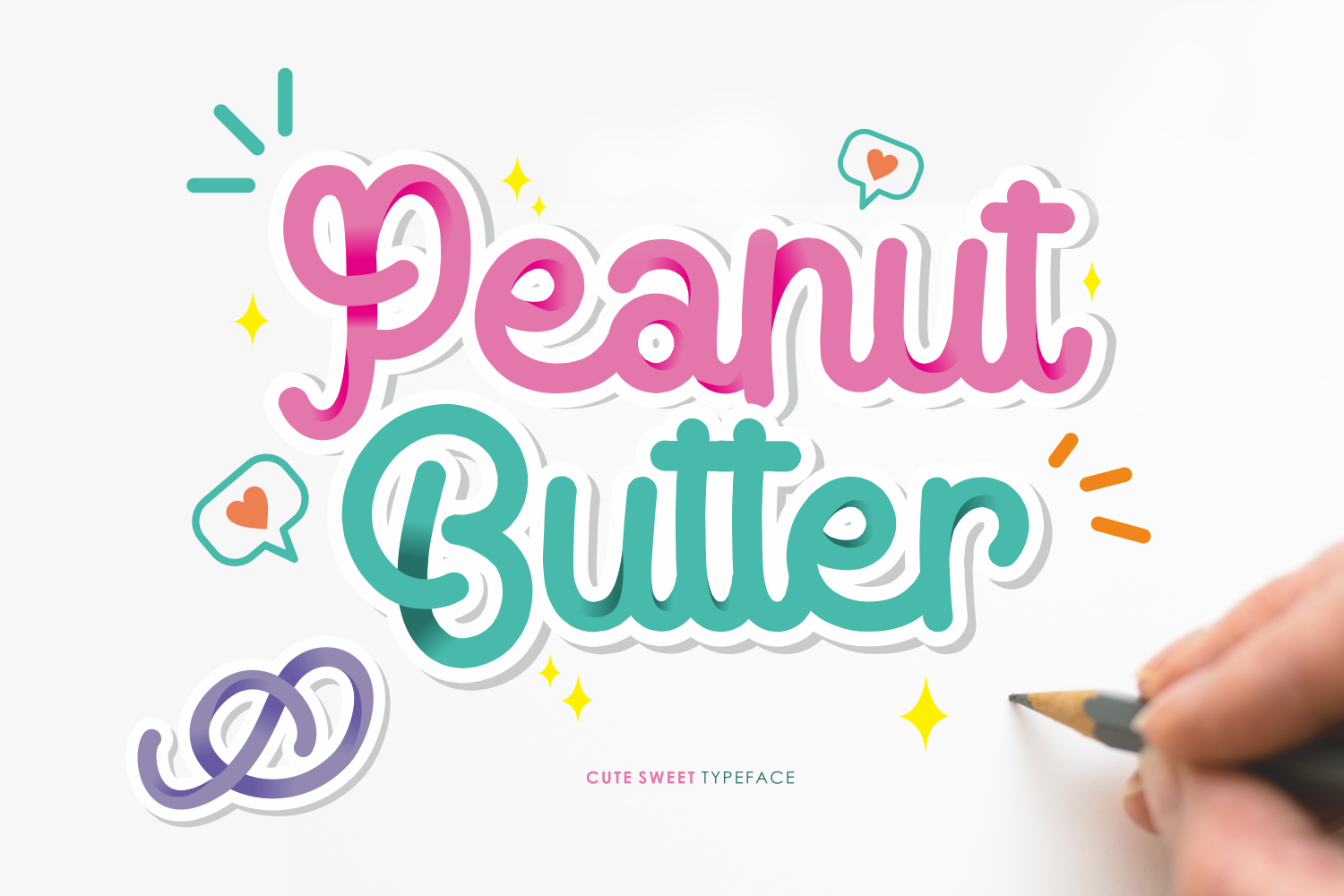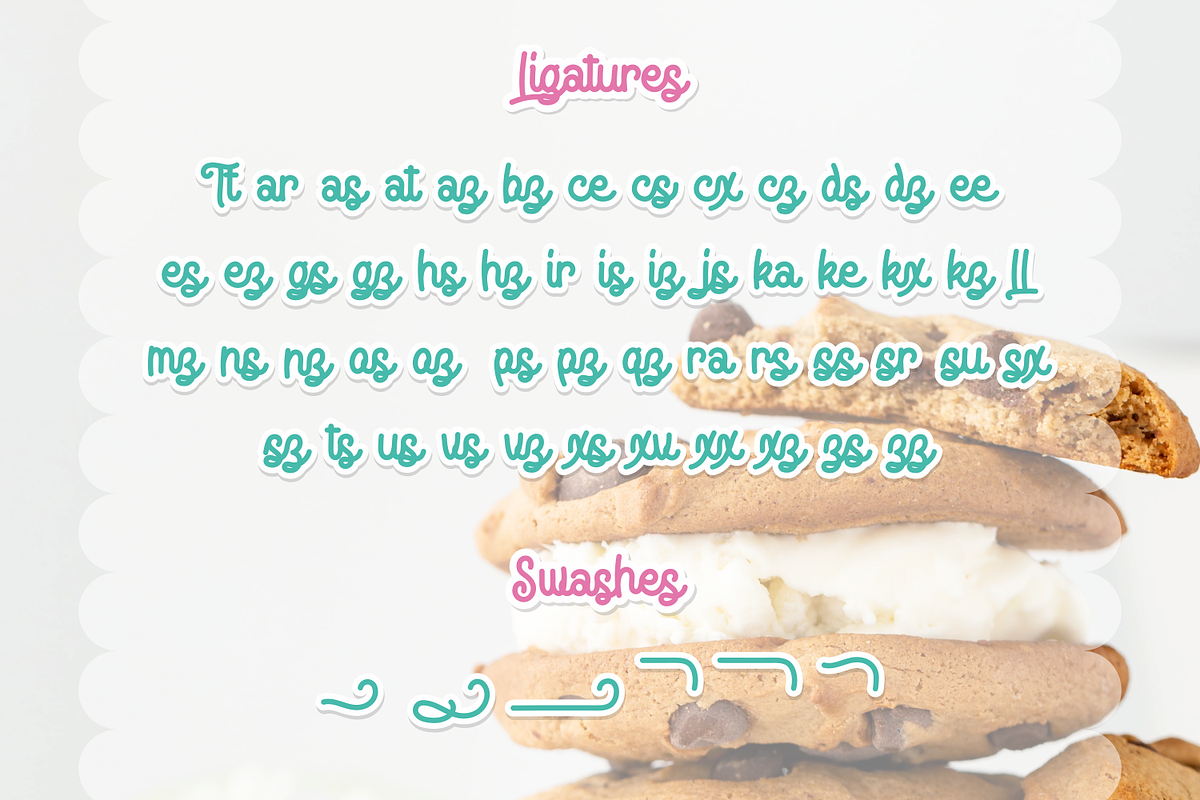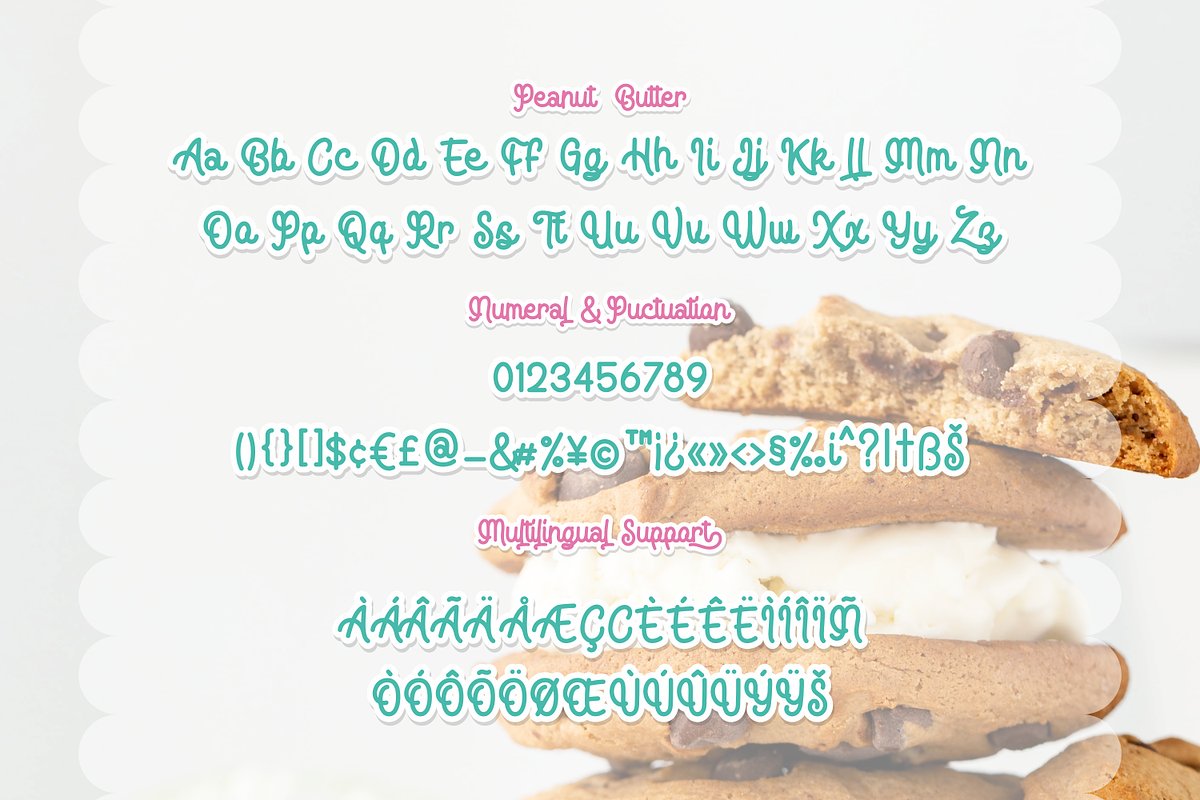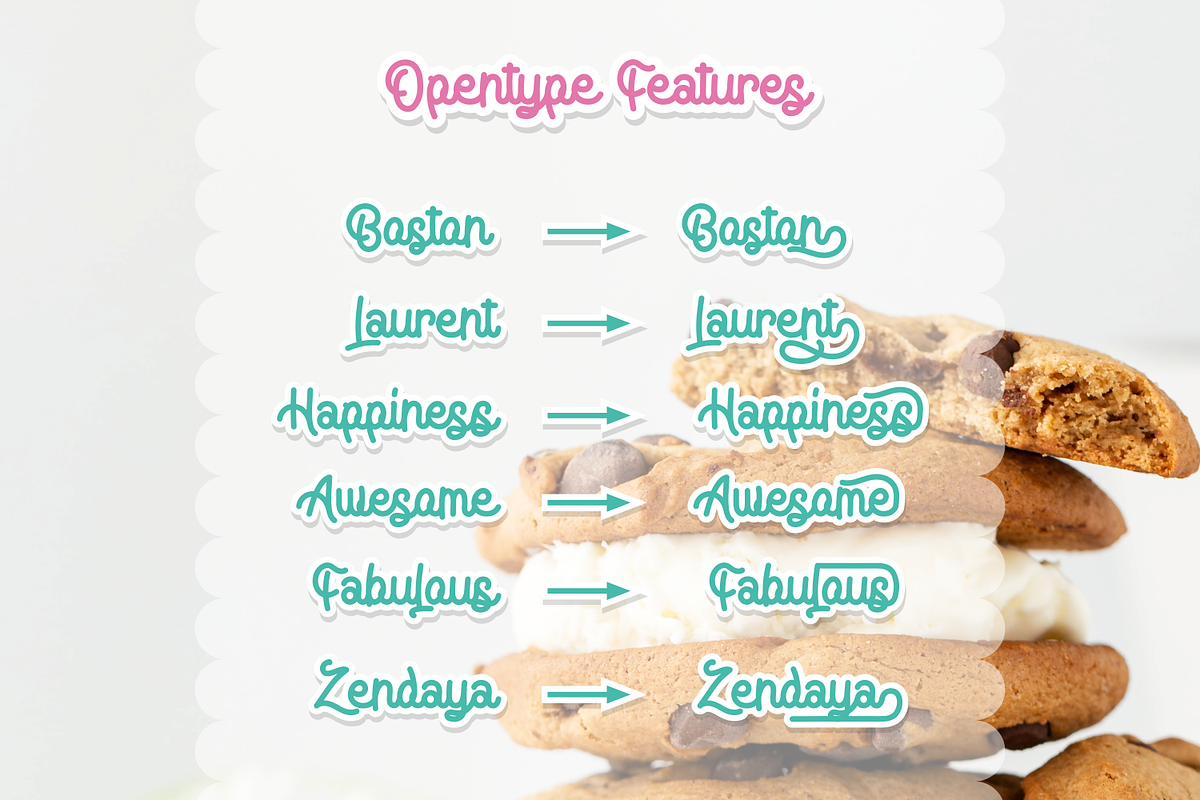
Peanut Butter, a sweet script font
Peanut Butter is a playful, cheerful, sweet, and quirky font that will work perfectly for kids projects or any business that wants to appear fun and playful.
- Stylistic Alternates (ending swash)
- Multilingual characters